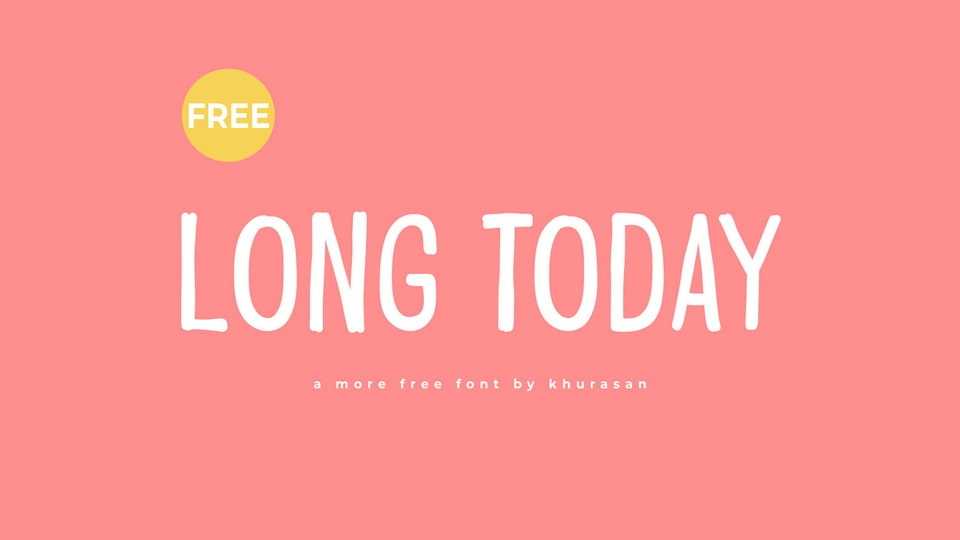
Download Long Today font, a tall and playful hand-drawn typeface that towers with whimsical charm and personality. Long Today font is crafted with elongated proportions and playful details, evoking a sense of imagination and creativity.